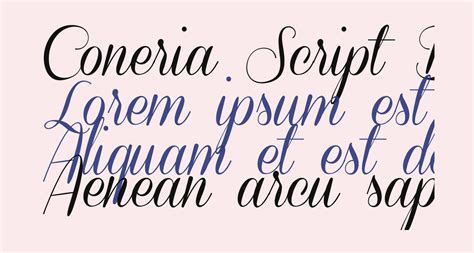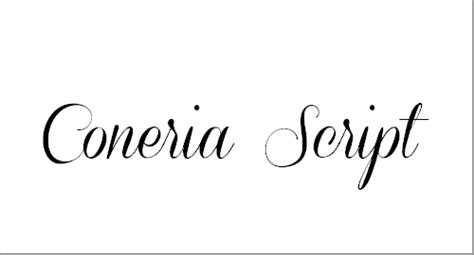
Font Coneria Script Gratis / Coneria Script Demo Font Download : Coneria script slanted demo font is one of coneria script font variant which has regular style.. 1001 free fonts offers a huge selection of free fonts. Fonte criada por m ns greb ck e gratuita para uso pessoal. Descargue la fuente coneria script. To purchase the full font and a commercial license, visit Coneria script is a calligraphy script font that was designed by mans greback a swedish famous type designer.
Coneria script font is script font which is designed by måns grebäck. Script free fonts, calligraphy free fonts. Download the free coneria script demo font by måns grebäck. Coneria script has 2 styles and free for personal use license. Coneria script by måns grebäck. This font was downloaded over 3 million time on dafont.com and one of the top popular fonts of the designer. Download free fonts for windows and macintosh. Cute and simple script font in six styles.
Coneria script font is script font which is designed by måns grebäck.
Download the free coneria script demo font by måns grebäck. Quantity should be less than 2,140,000,000. This font was downloaded over 3 million time on dafont.com and one of the top popular fonts of the designer. To purchase the full font and a commercial license, visit The ultimate font download es la colección de fuentes más grande y más vendida en línea.
Font coneria script can be described in the following words: Cute and simple script font in six styles. Download free coneria script font by måns grebäck from fontsly.com. To purchase the full font and a commercial license, visit Quantity should be less than 2,140,000,000. Download free fonts for windows and macintosh. Free download of coneria script font family with 2 styles. It is script font and has 2 styles.
Coneria script font is script font which is designed by måns grebäck. Script free fonts, calligraphy free fonts. Coneria script by måns grebäck. Fonte criada por m ns greb ck e gratuita para uso pessoal. Descargue la fuente coneria script. This font is for personal use only! Download free fonts for windows and macintosh. Script is a product of micrologic software, inc. To purchase the full font and a commercial license, visit Free download of coneria script font family with 2 styles. Up to 6 typefaces / 1 value packs. Lhf marie script font family lhf marie script font family 2 x ttf and otf this beautiful, calligraphic style set from sign artist dave correll is sure to become your new favorite. Download and install the coneria script demo font for free from ffonts.net.